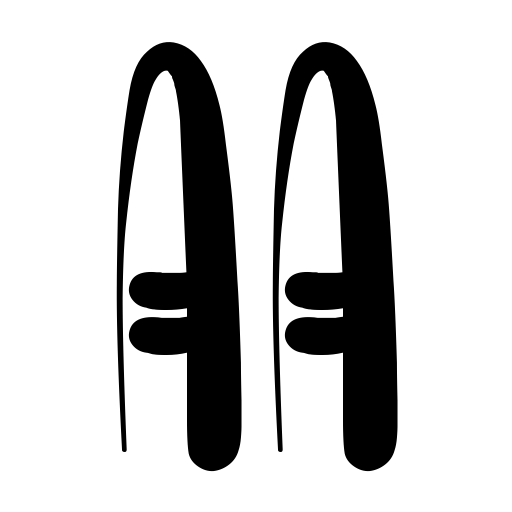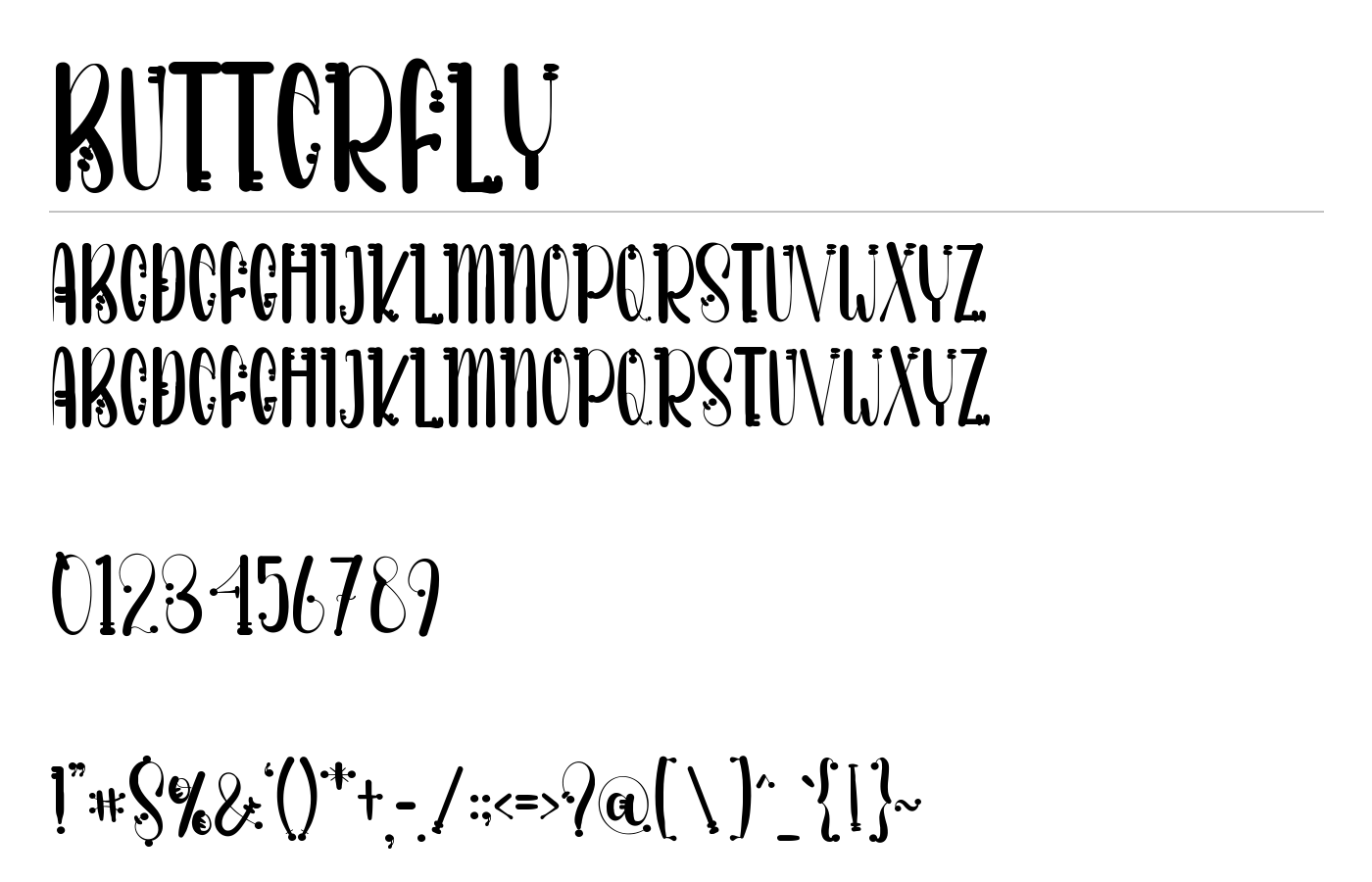
Butterfly Font is a playful and whimsical sans serif typeface characterized by its tall, narrow letterforms and delicate decorative dots that resemble butterfly antennae. With a light to regular weight and medium contrast in stroke width, this font combines quirky elegance with a hand-crafted feel, making it ideal for creative projects, children’s books, or brands looking for a fun and unique personality. It works best in headlines, logos, and packaging where its distinctive style can shine without overwhelming readability.
Butterfly Font